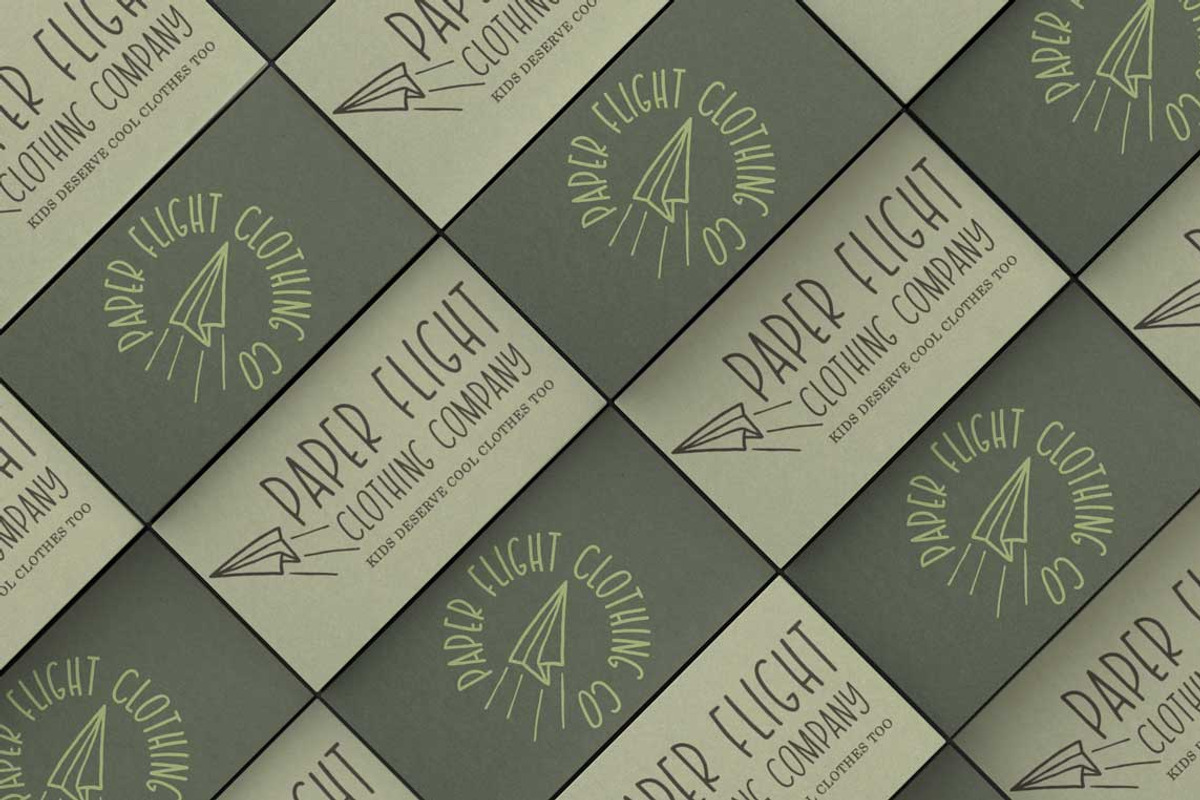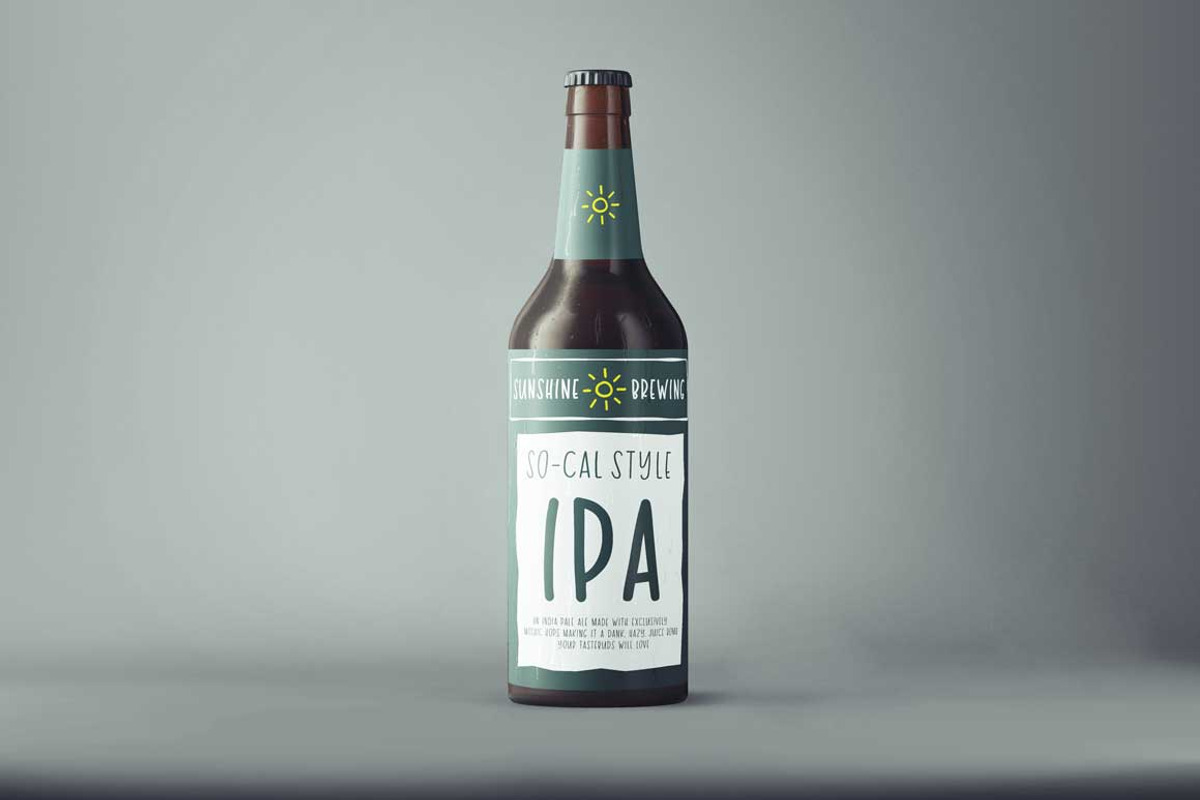
Bon Voyage
Bon Voyage! An exciting, all caps, hand written font featuring three weights, icons, patterns, and brushes. This font was created from my favorite style to pair with a brush lettered script. Bon Voyage adds a quirky touch to any project, including blog graphics, branding, stationery, and more.